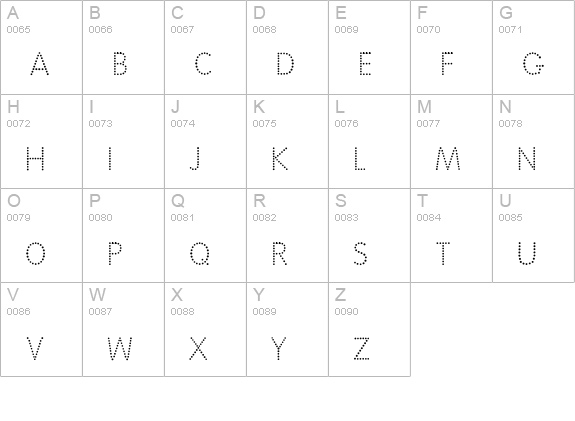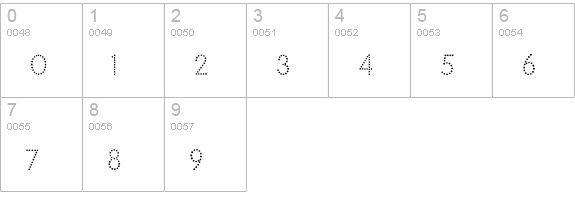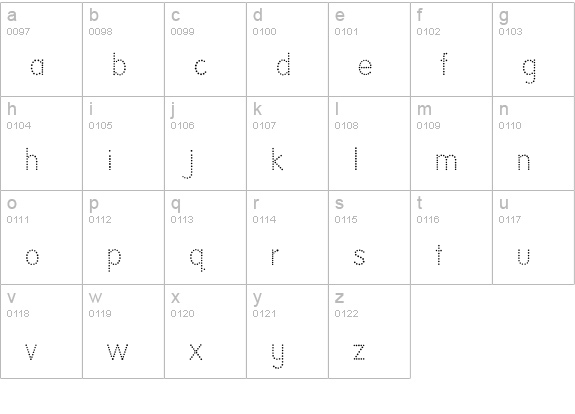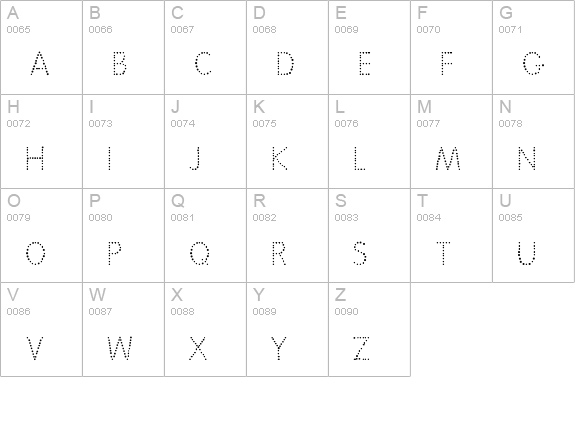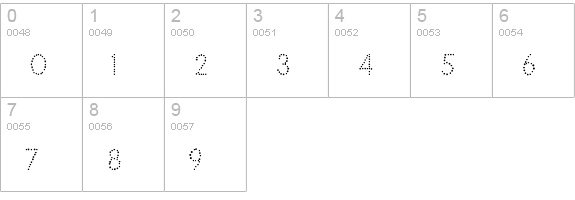
National First Font Dotted is a captivating and versatile font that combines the elegance of traditional typography with a modern touch. Featuring dotted patterns that add an element of playfulness and creativity, this font is perfect for a wide range of design projects, from children's books to educational materials. The clear and easy-to-read characters make it ideal for enhancing readability and engagement. The best part? National First Font Dotted is available for free download at FontsMarket.com. This means you can easily access and use this unique font in your projects without any cost. Whether you're a seasoned designer looking to add a fresh twist to your work or a beginner exploring the world of typography, National First Font Dotted is a fantastic choice that won't break the bank. Download it today and let your creativity soar with this delightful and eye-catching font.